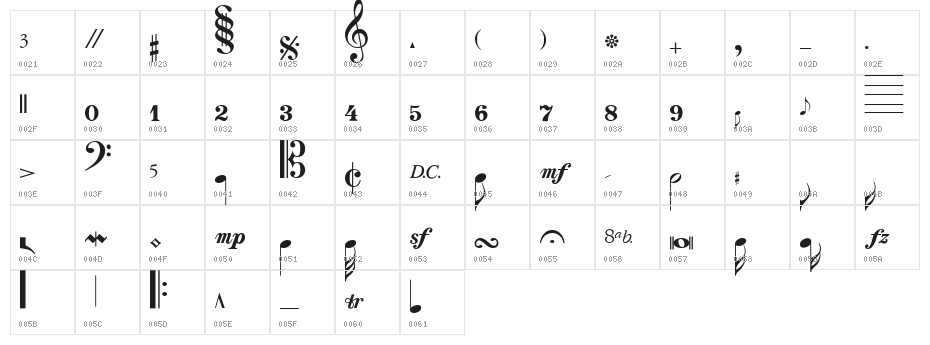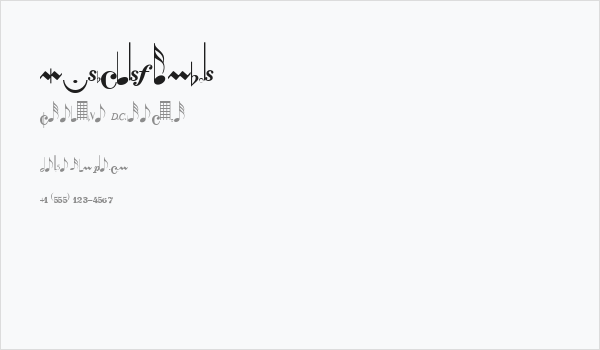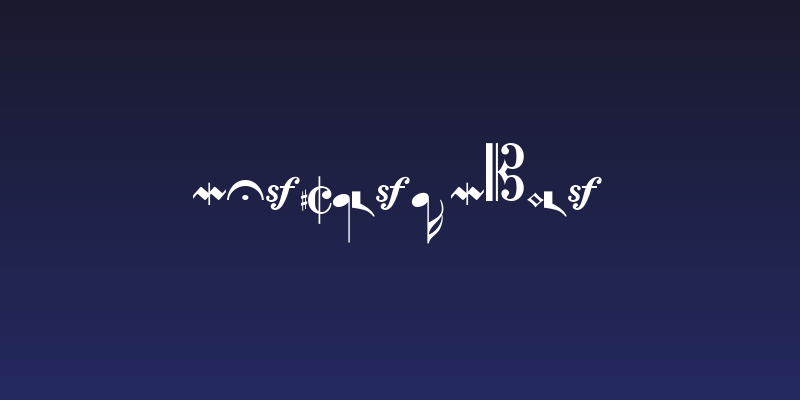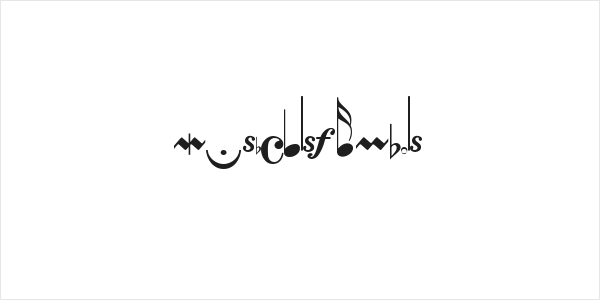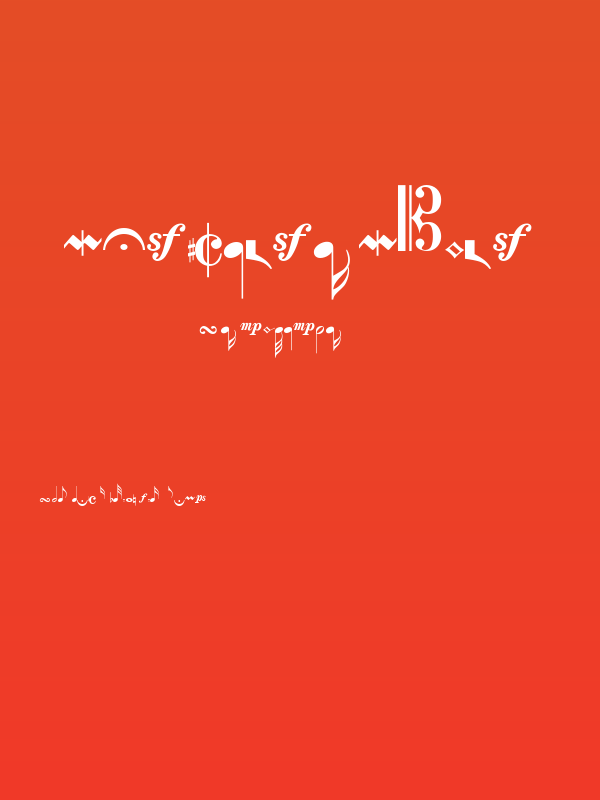
MusicalSymbols Font
| Overall Style | Functional, Symbolic |
| Use Case | Sheet music, music education, music-related graphic design |
| Proposed Projects | Music notation software, educational music materials, sheet music design, music-themed graphic projects. |